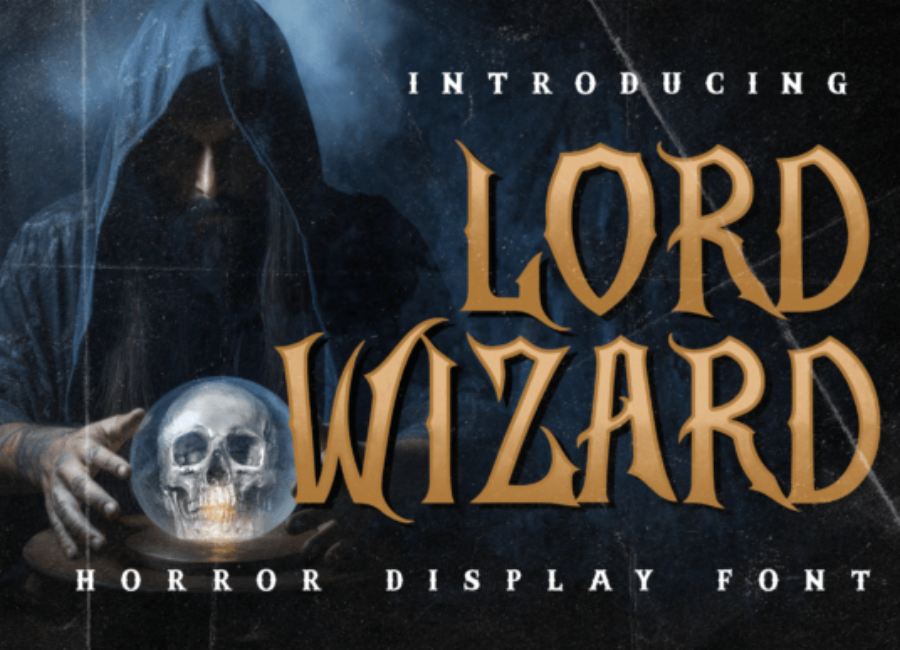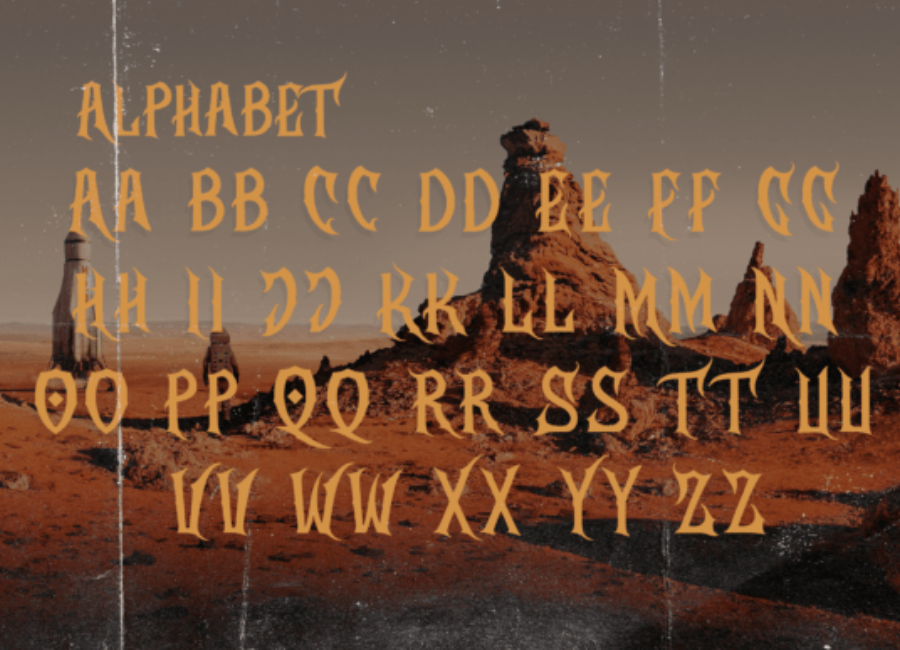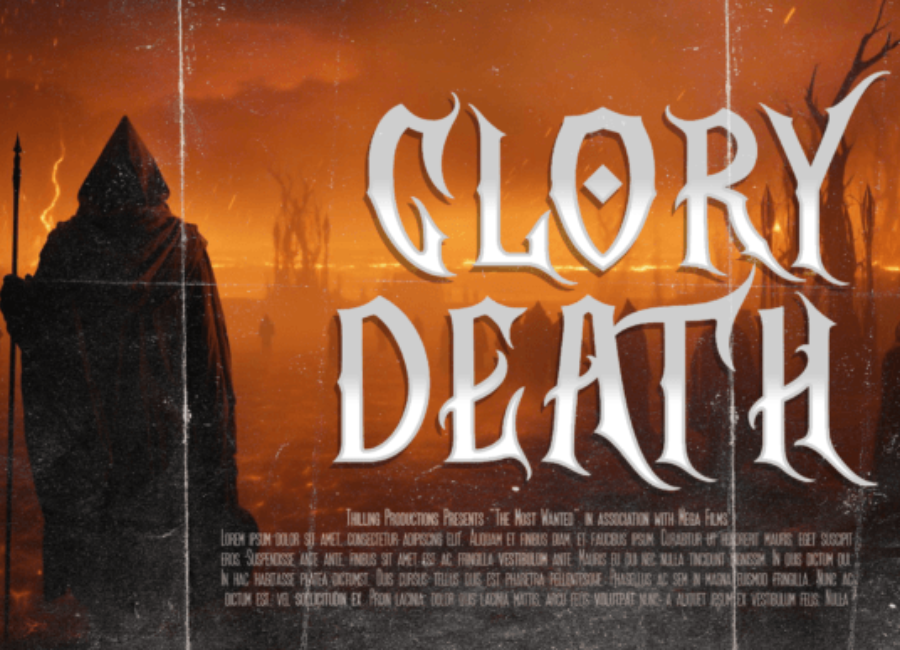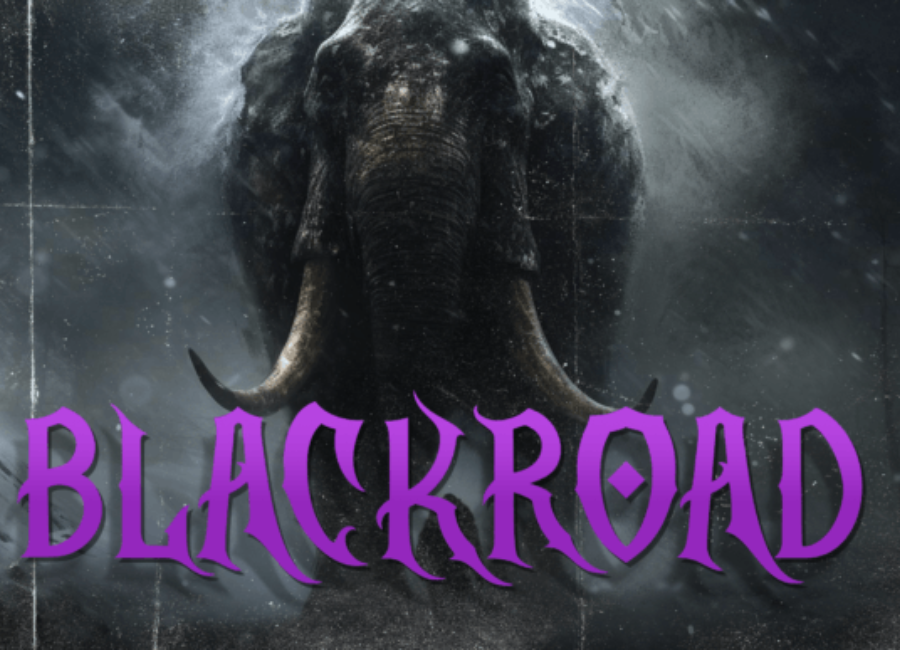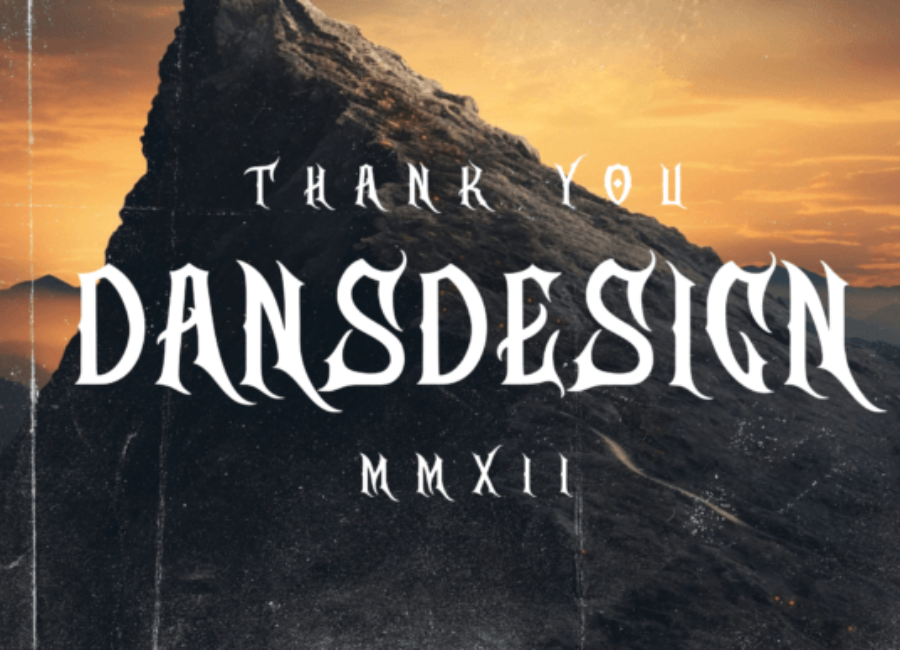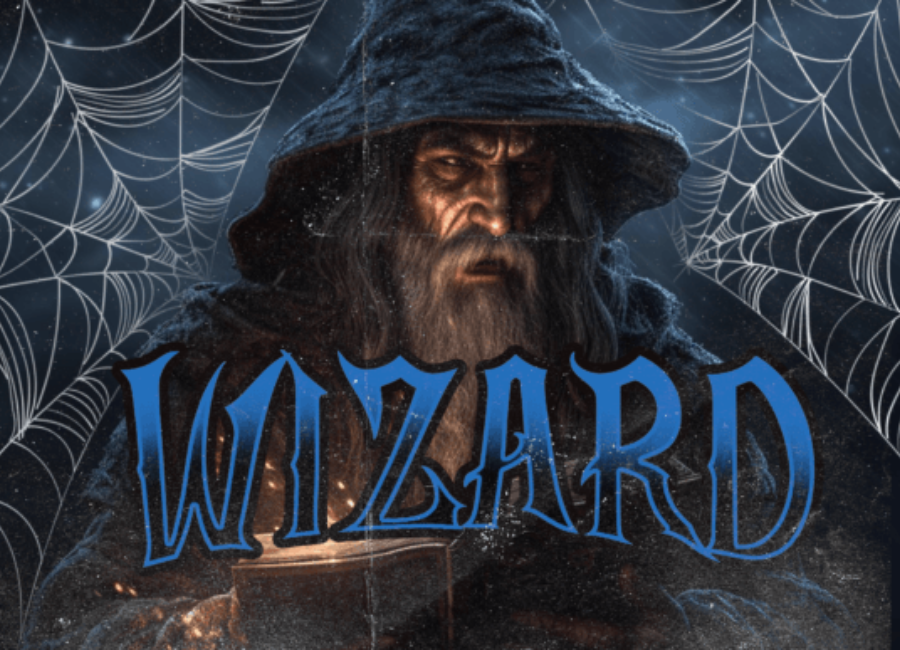
Lord Wizard Font
Lord Wizard Font: A Magical Typeface Inspired by Fantasy and Power
In the world of typography, few styles capture imagination as powerfully as fantasy-inspired fonts. Among them, Lord Wizard Font stands out as a mystical, bold, and enchanting typeface that instantly evokes images of ancient spells, legendary kingdoms, and arcane power. Designed with dramatic letterforms and a strong magical personality, Lord Wizard Font is perfect for projects that demand a sense of mystery, dominance, and epic storytelling.
Whether you are designing a game logo, fantasy novel cover, movie poster, or magical branding concept, Lord Wizard Font delivers a striking visual presence that commands attention and sparks curiosity.